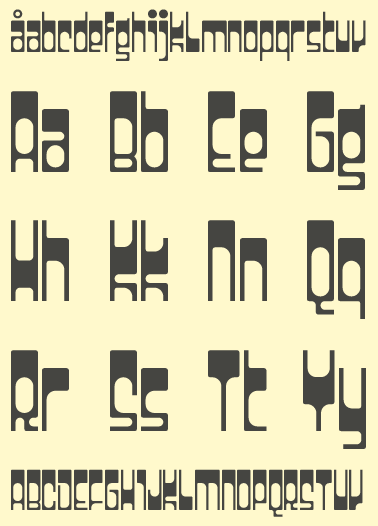
Ubangi
This is a remix of an old Rian Hughes font called "Darkside". I boiled down the geometry, added slightly rounded outer corners--and a whole new set of upper case characters. (Hughes’ font had only lower case).
A nice (and expanded) take on the Rian Hughes original. 10/10
I know Rian. I'm sure he'd like the upper case. Although he's really obsessive and particular about the exact positioning of every vector point and curve. Which is probably the reason why he is so utterly brilliant.
Very pretty. I see, you've replaced the parabolas (of Darkside) with regular circles, and it worked nicely. 10/10